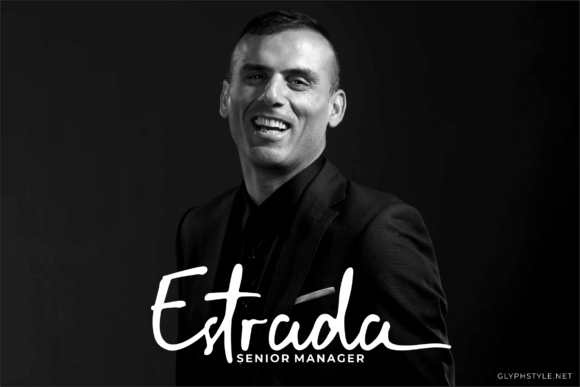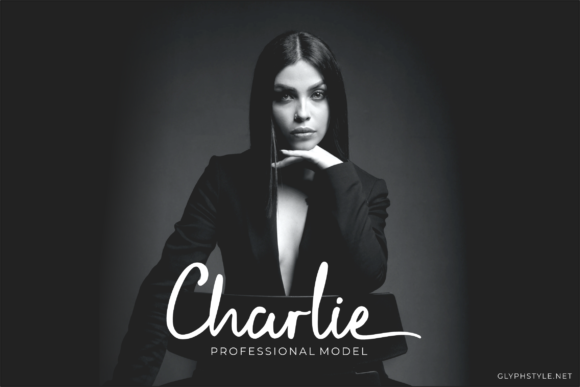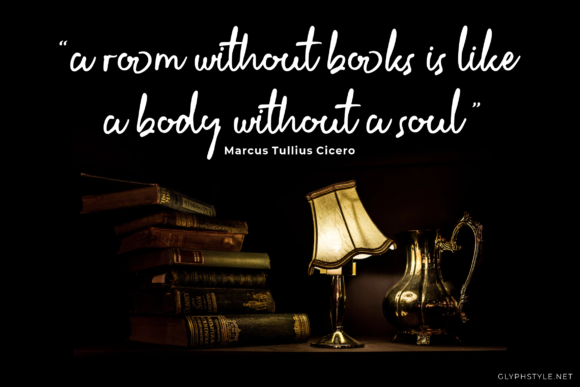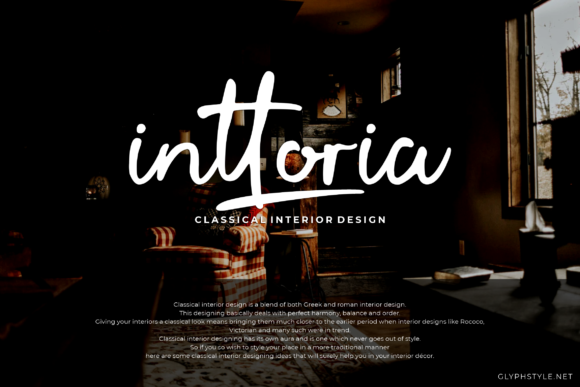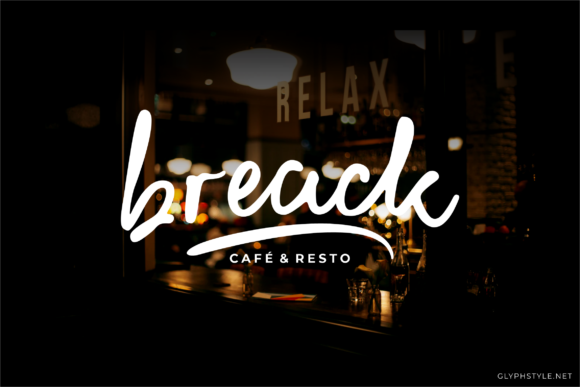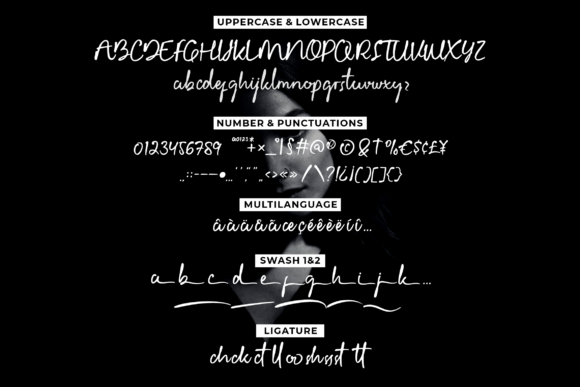
Introduction to Gellardo Font
Gellardo is a smooth handwritten font.
It has a slightly thick and natural feel Use this amazing font for branding and logos, wedding designs, social media posts, advertisements, business cards, clothing products, quotes, magazine covers, labels, photography, watermarks, invitations, stationery, and much more.